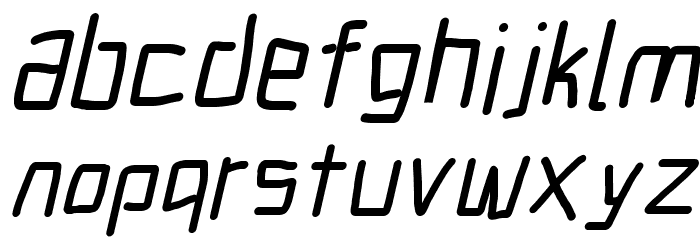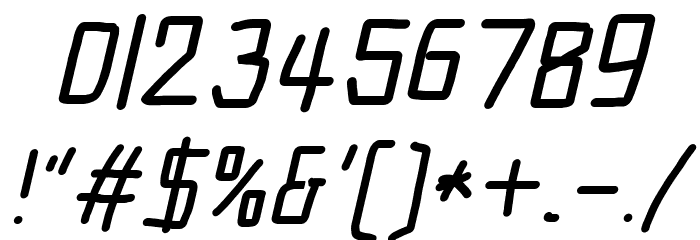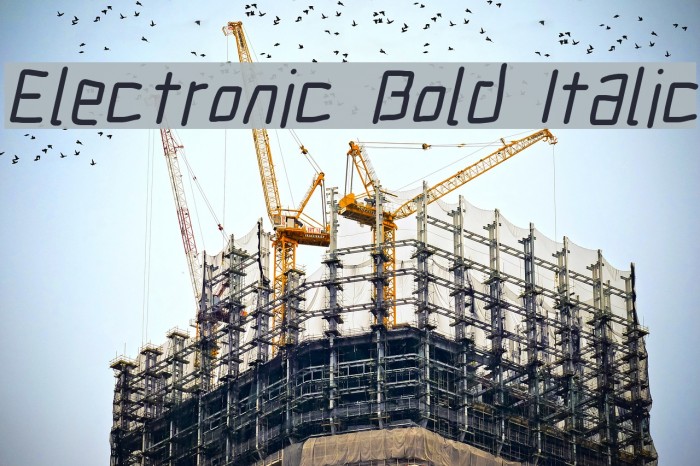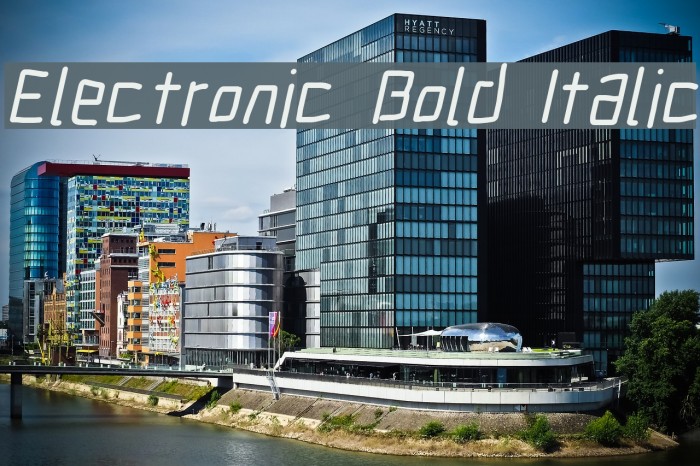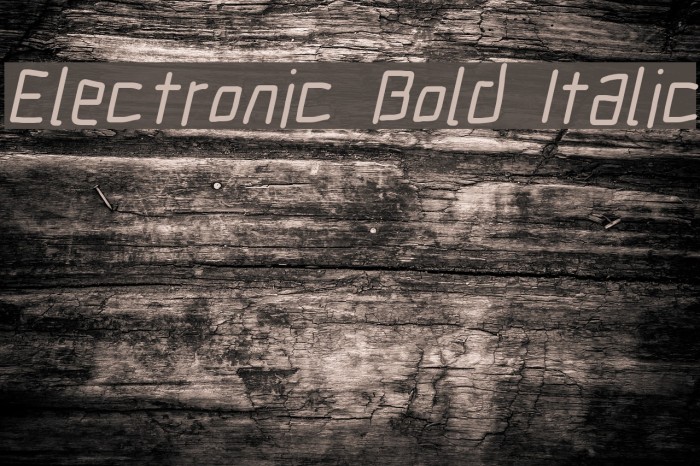
Electronic Bold Italic Font
This font features a futuristic and dynamic style with a bold and italicized appearance. The characters are slightly slanted, giving a sense of movement and speed. The strokes are consistent in width, providing a uniform and clean look. The uppercase letters are distinct with sharp angles, while the lowercase letters maintain a similar angularity, enhancing readability. Numbers and special characters follow the same design principles, ensuring a cohesive appearance across all glyphs. This font is ideal for projects that require a modern and tech-inspired aesthetic.
- Proposed Projects: Ideal for technology branding, video game titles, sci-fi posters, and digital interfaces.
- Use Case: Headlines, Logos, Digital interfaces